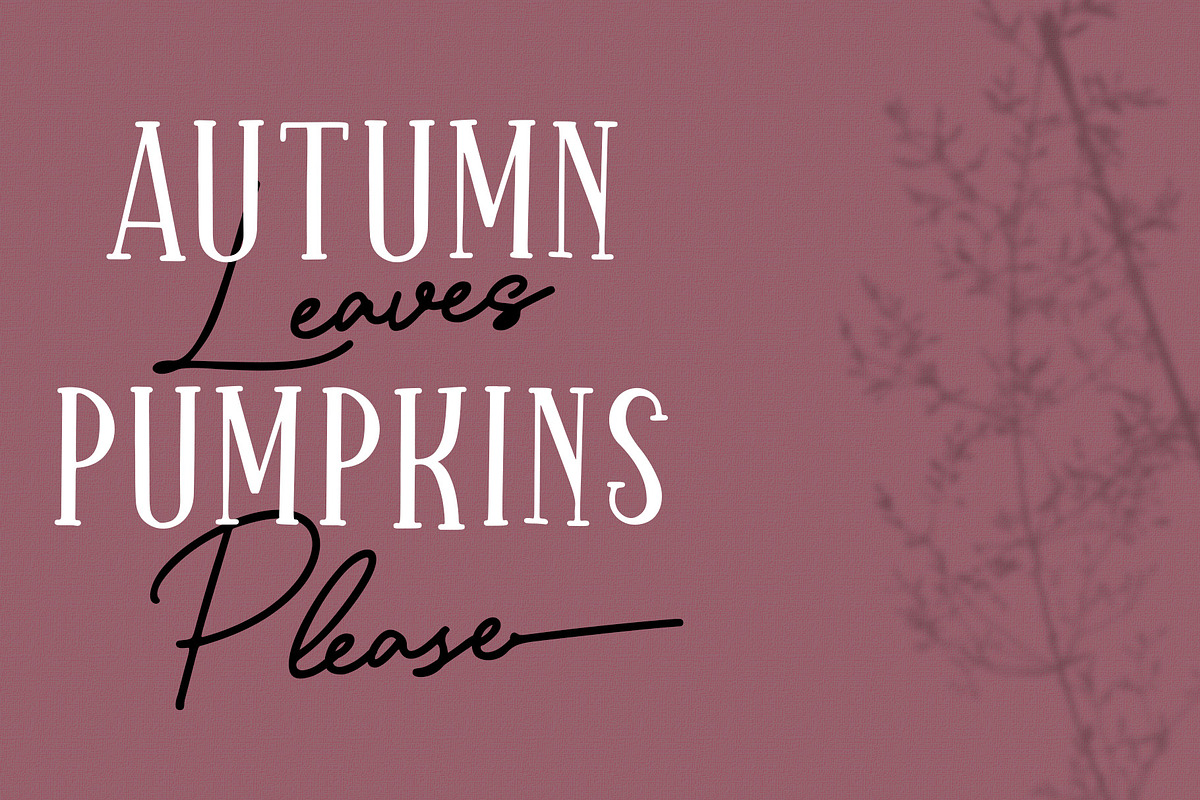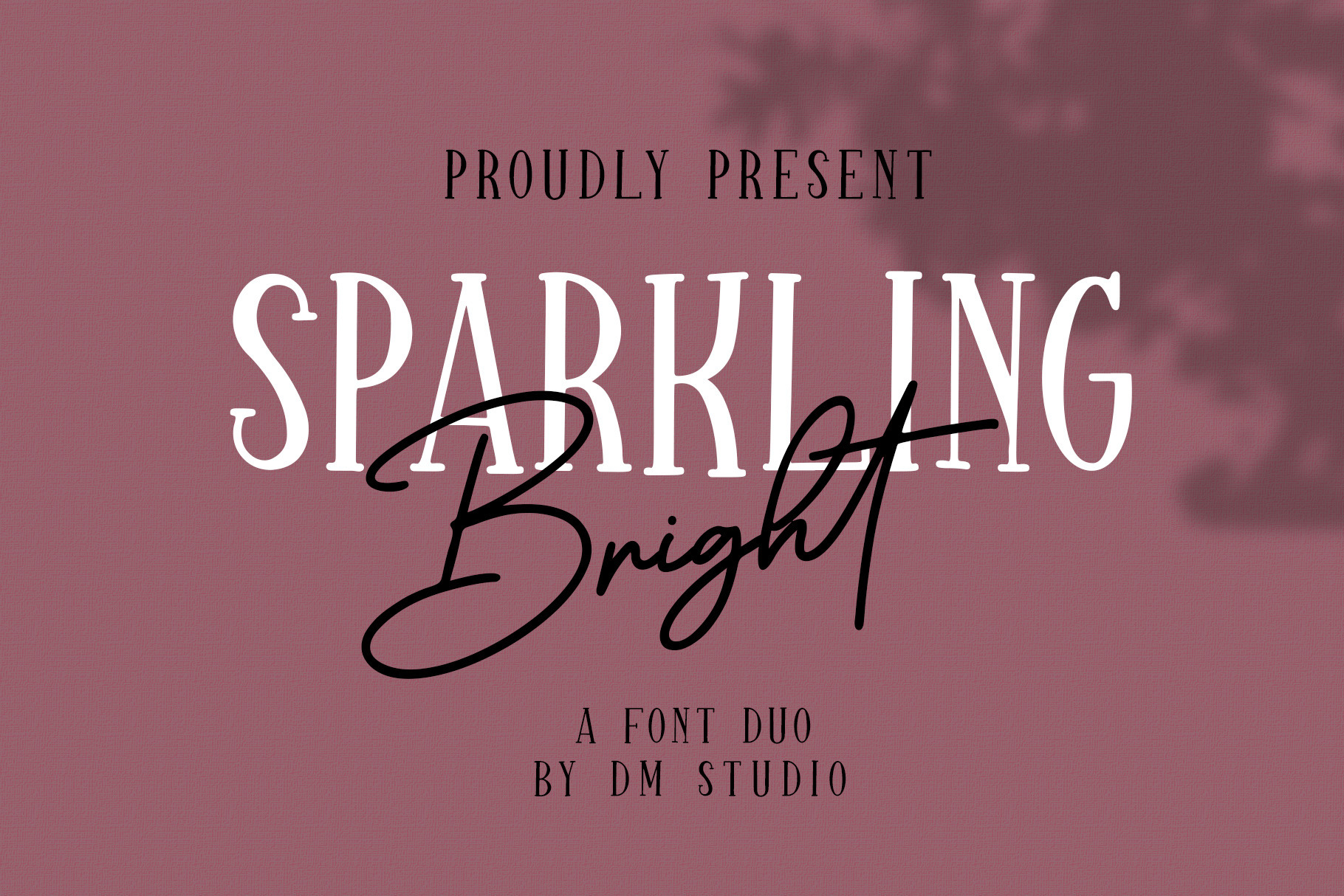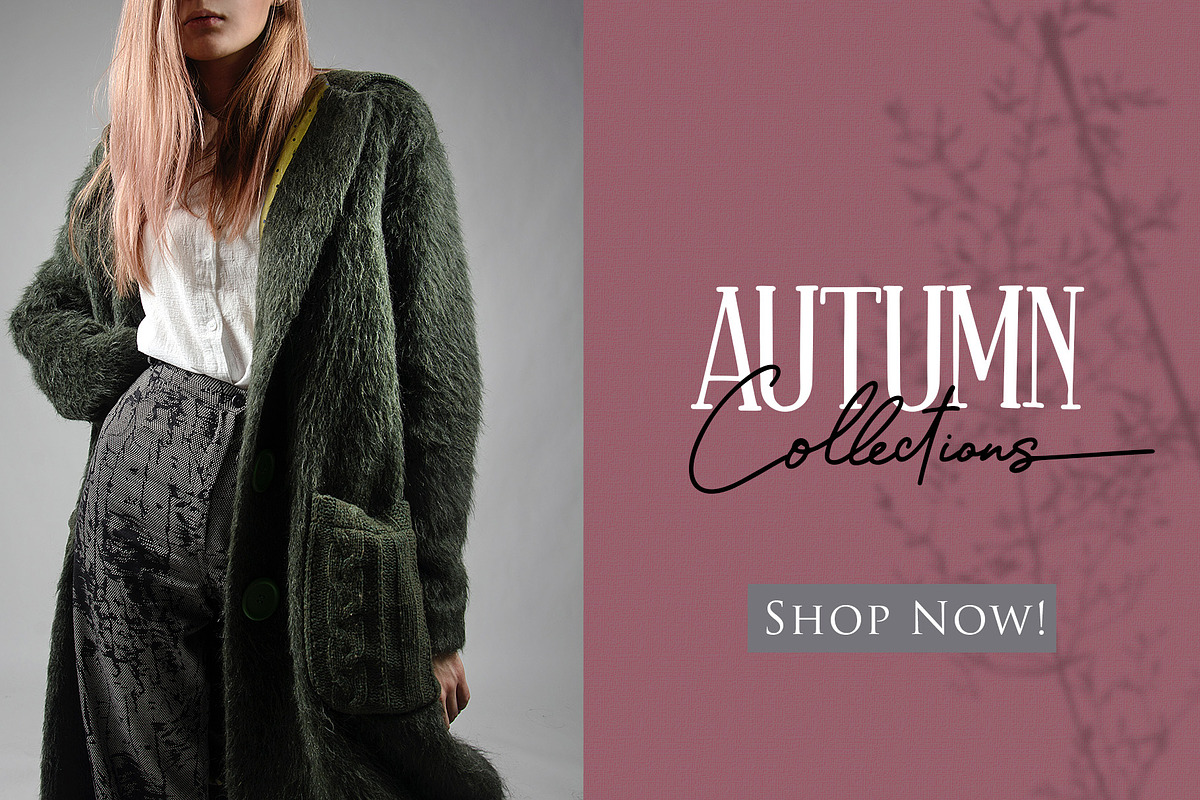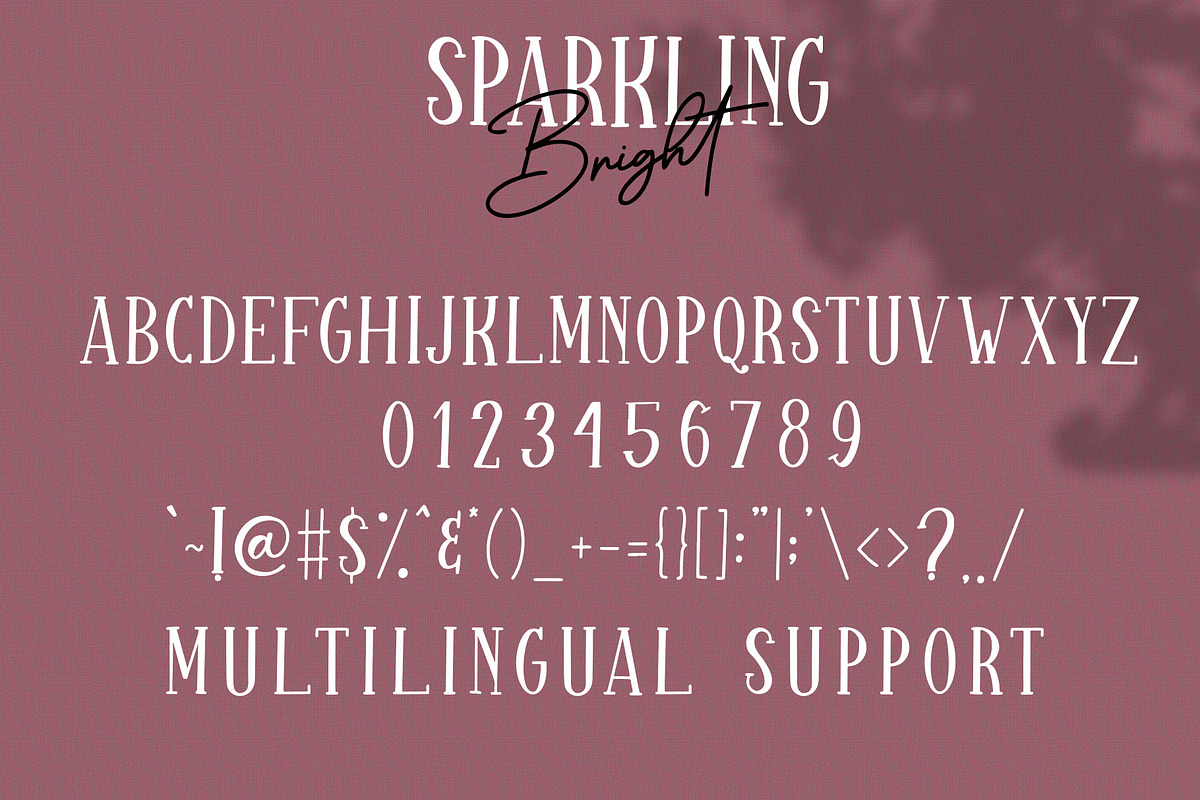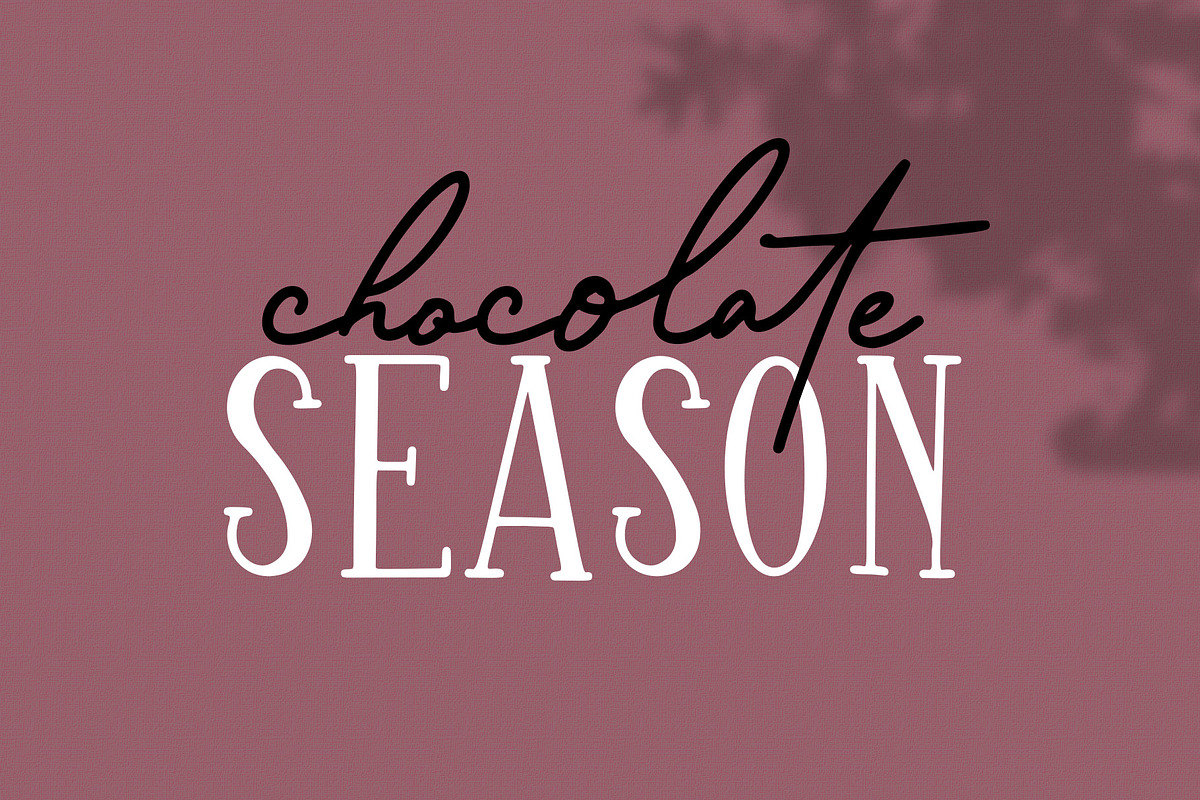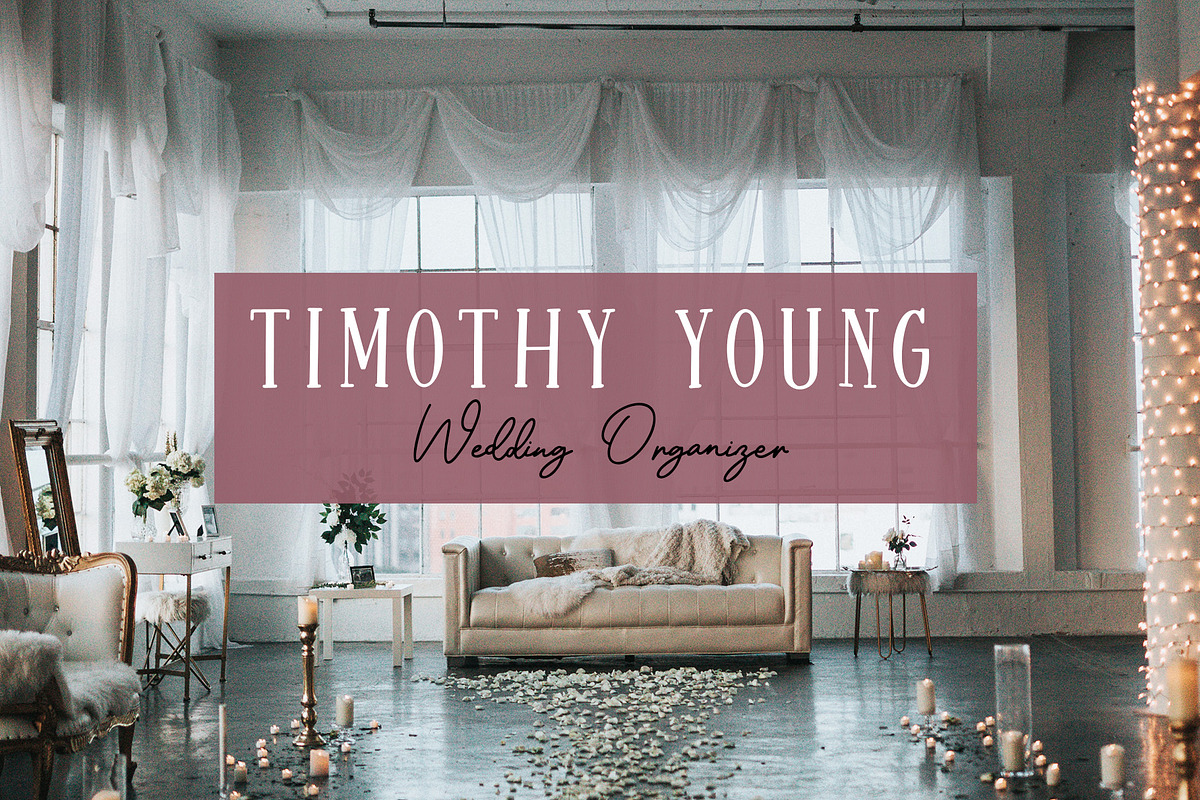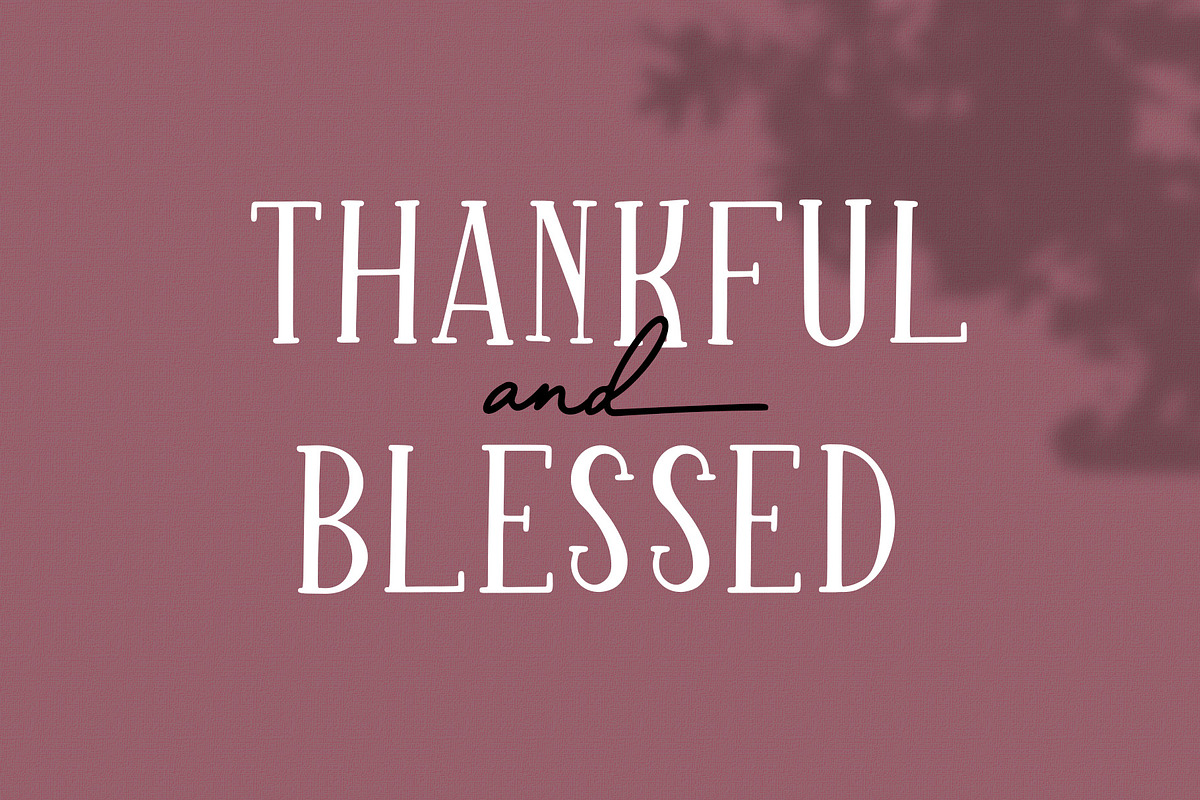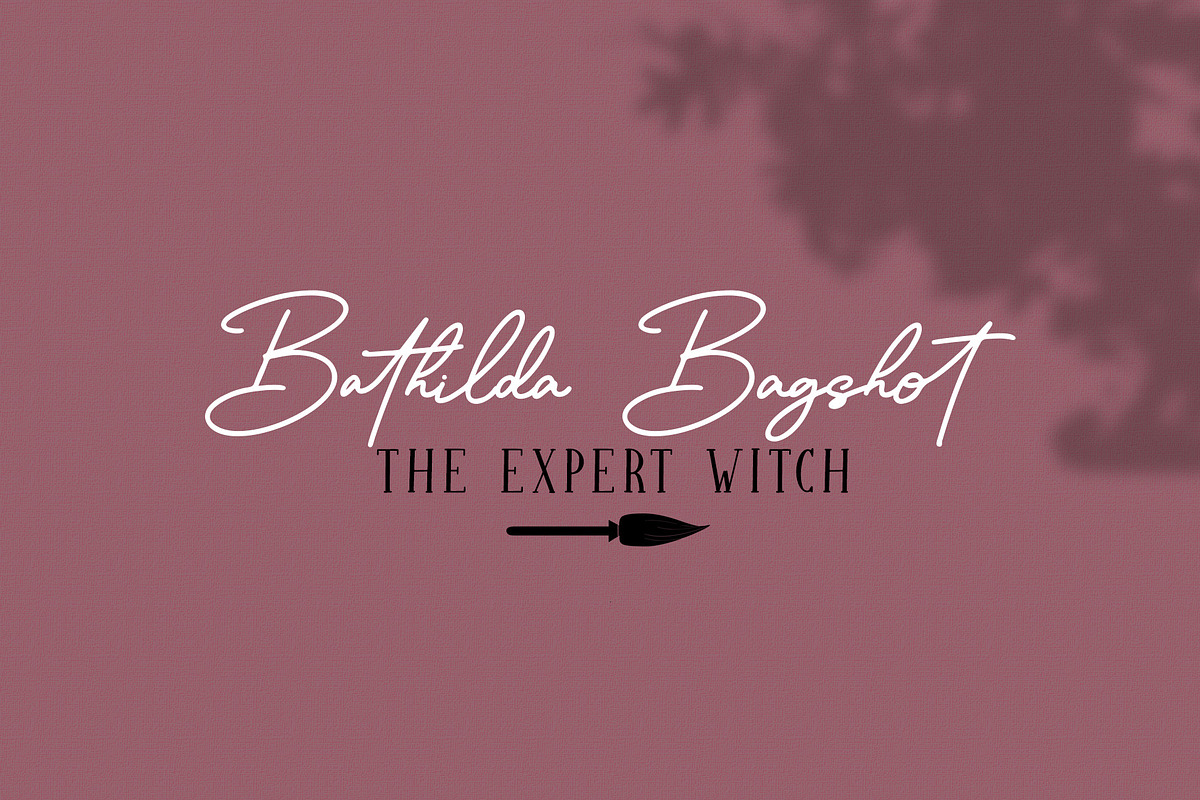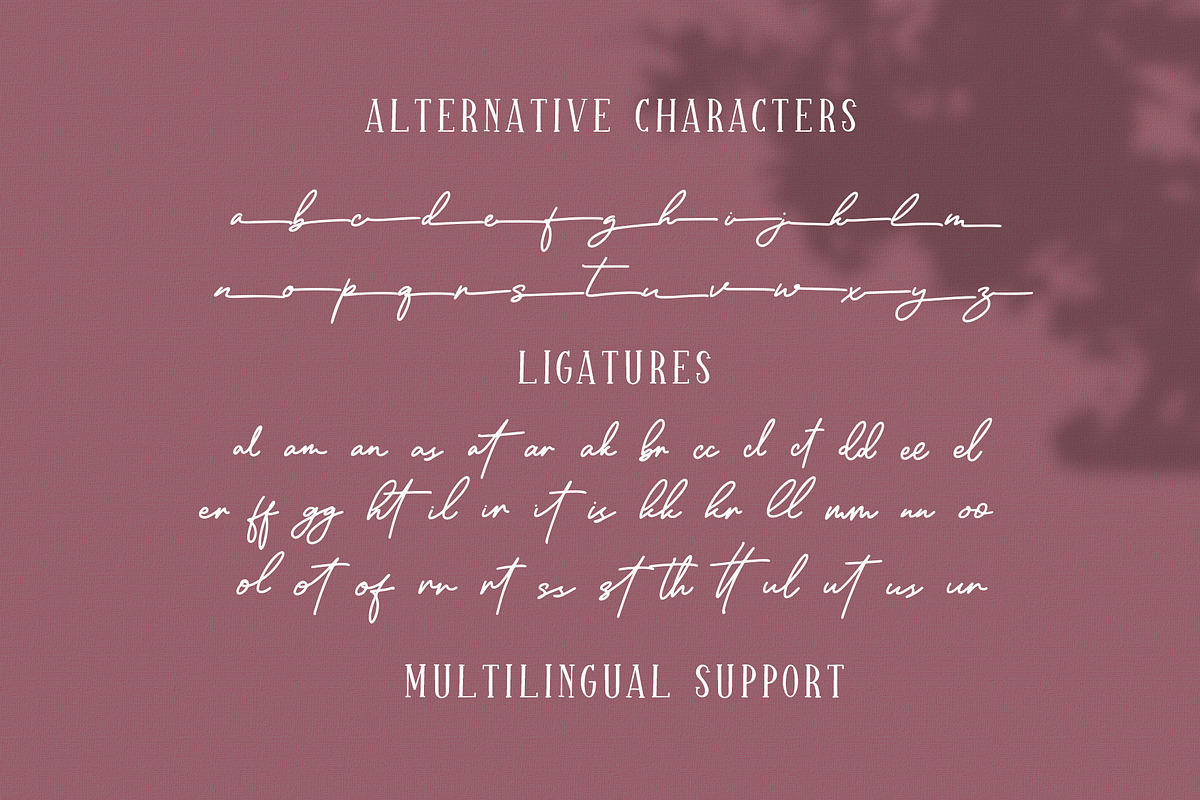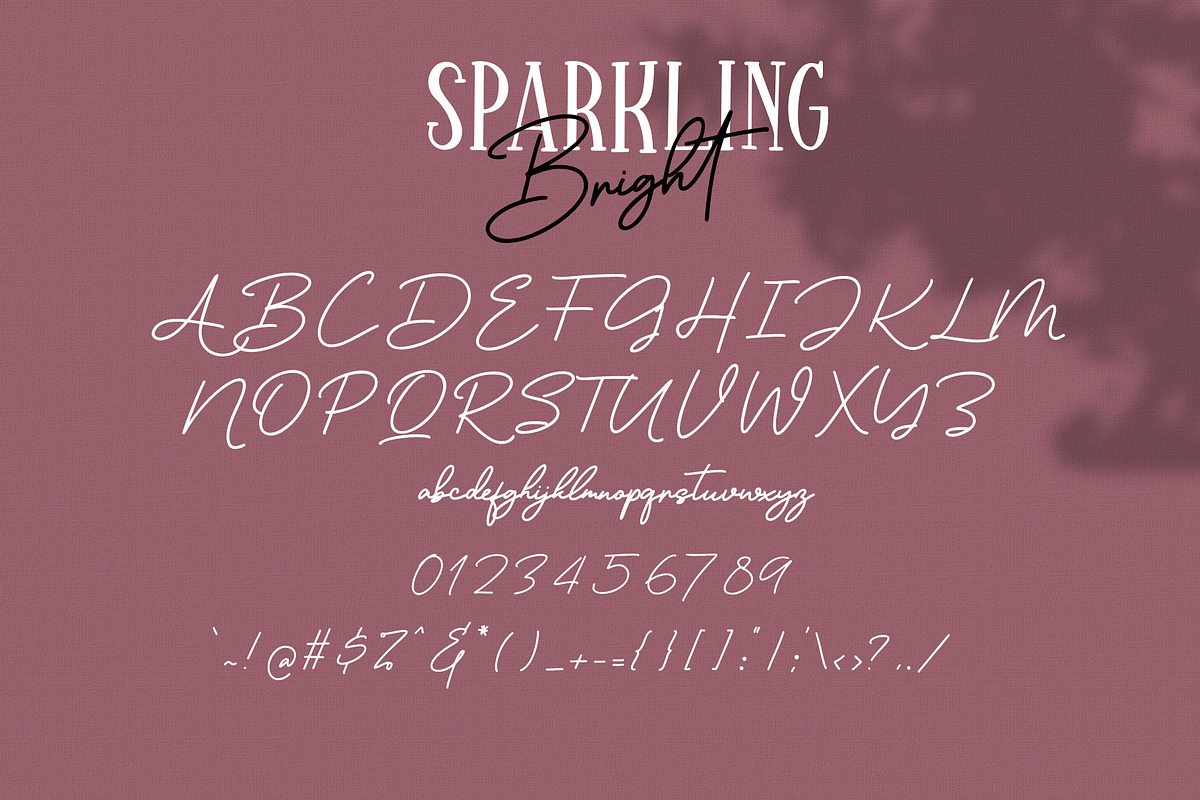
Sparkling Bright - Beauty Font Duo
Introducing, Sparkling Bright Font Duo!
This is a combination of Handwritten Serif and Handwritten Signature font, which completely makes your design more chic! Use them for your greeting card, promotions, business, t-shirt or merchandise products, and much more. You can use the serif or the script alone, or pair them to make some unique design!
Serif features :
- All in Caps characters
- Standard Symbols
- Numerics
Script Features :
- lowercase
- Numerics
- Alternative Ending Characters